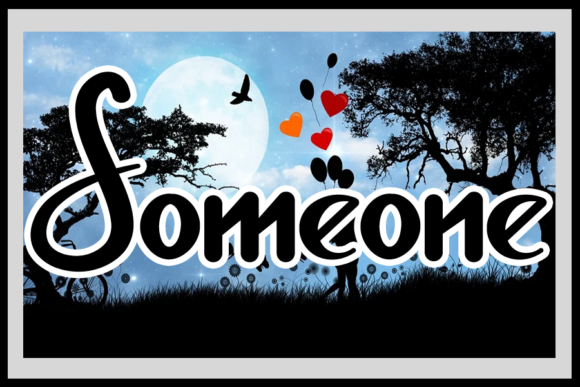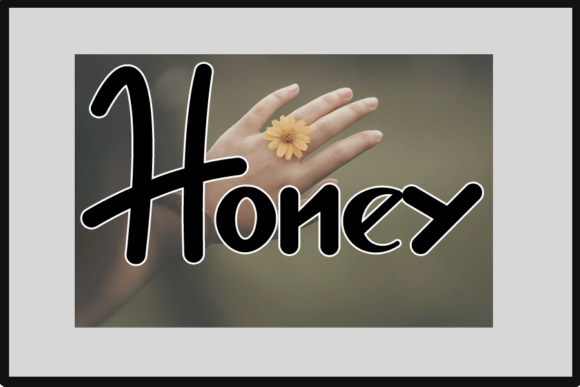
Journey Font
db-ku.com - Script & Handwritten -- Journey is a delicate, elegant and flowing handwritten font. It has beautiful and well balanced characters and as a result, it matches a wide pool of designs. Add it to your most creative ideas and notice how it makes them come alive!